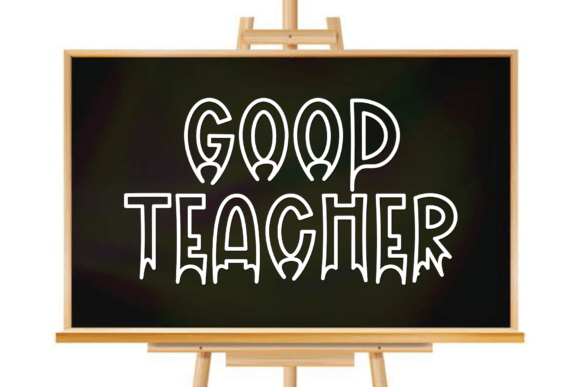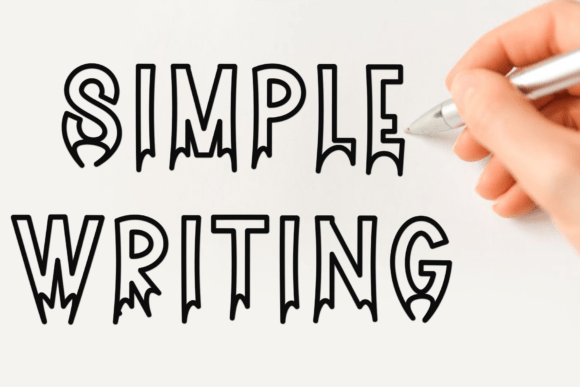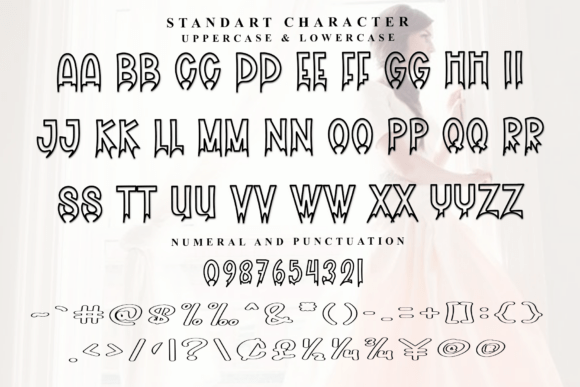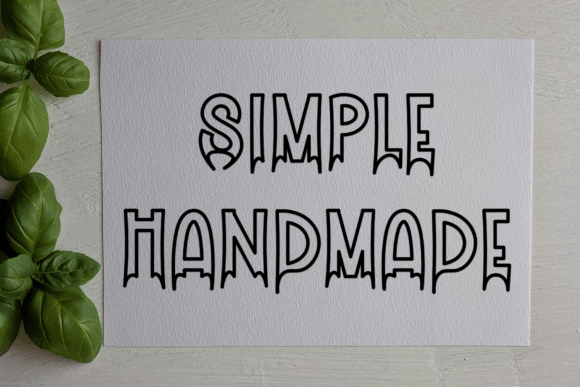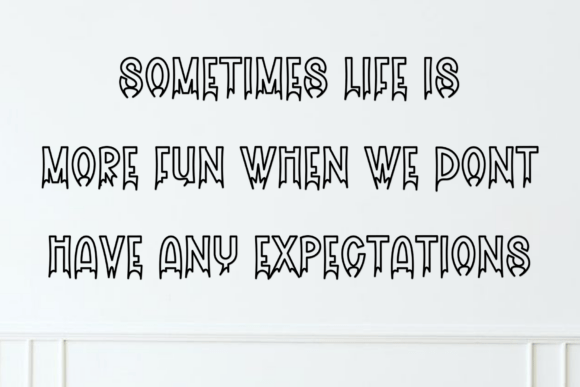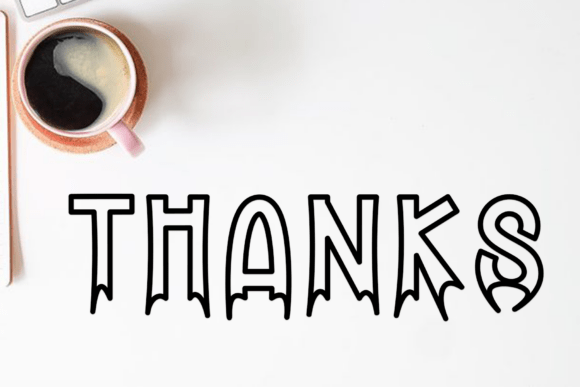
The Designer’s Delight: Black Varsity Font
I still remember the frustration of working on a design project, hours spent crafting the perfect layout, only to realize that the font I chose wasn’t quite right. The client wanted something that would make their brand stand out, but I was stuck with a font that was, well, just bland. That’s when I stumbled upon the Black Varsity font, and it was love at first sight! ✨
With its soft, unique touch and distinctive strokes, Black Varsity quickly became my go-to font for a wide range of design projects. In this article, I’ll share with you what makes this font so special, its versatility, and how to make the most of it in your designs.
- ✨ Unique and eye-catching design: Black Varsity’s soft, rounded edges and distinctive strokes make it a standout font that’s hard to ignore.
- ✅ Versatility: Whether you’re working on a logo, a poster, or a social media graphic, Black Varsity adapts seamlessly to different design contexts.
While Black Varsity is an amazing font, there are a few things to keep in mind: ⚠️
- 🤔 Limited use in very formal contexts: Due to its playful and creative vibe, Black Varsity might not be the best fit for very formal or corporate designs.
One of the best things about Black Varsity is its OpenType features and glyphs. With access to a wide range of stylistic alternates, you can customize your text to fit your design needs. For example:
- Use stylistic alternates to create variations of letters and numbers.
- Experiment with glyphs to add unique touches to your text.
The Story Behind Black Varsity
Black Varsity was designed with the intention of creating a font that would inspire creativity and self-expression. Its unique design and versatility make it perfect for a wide range of design projects, from logos and posters to social media graphics and crafts.